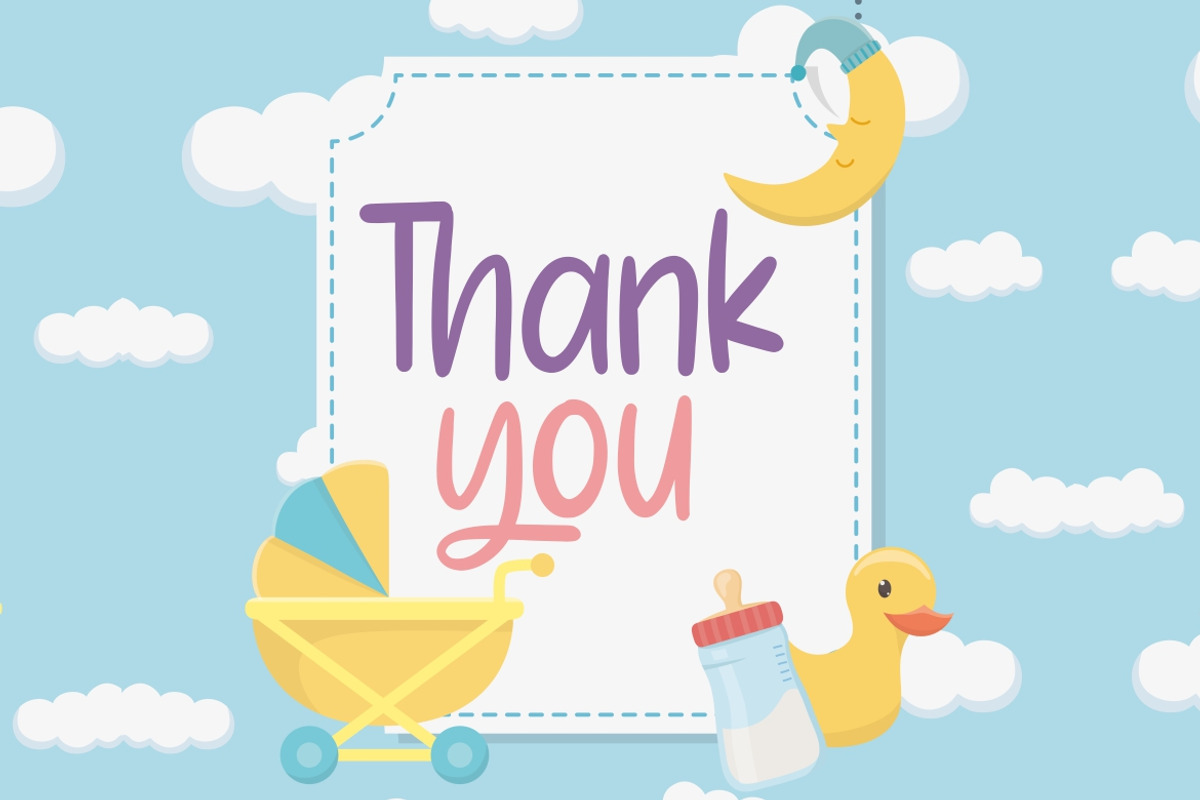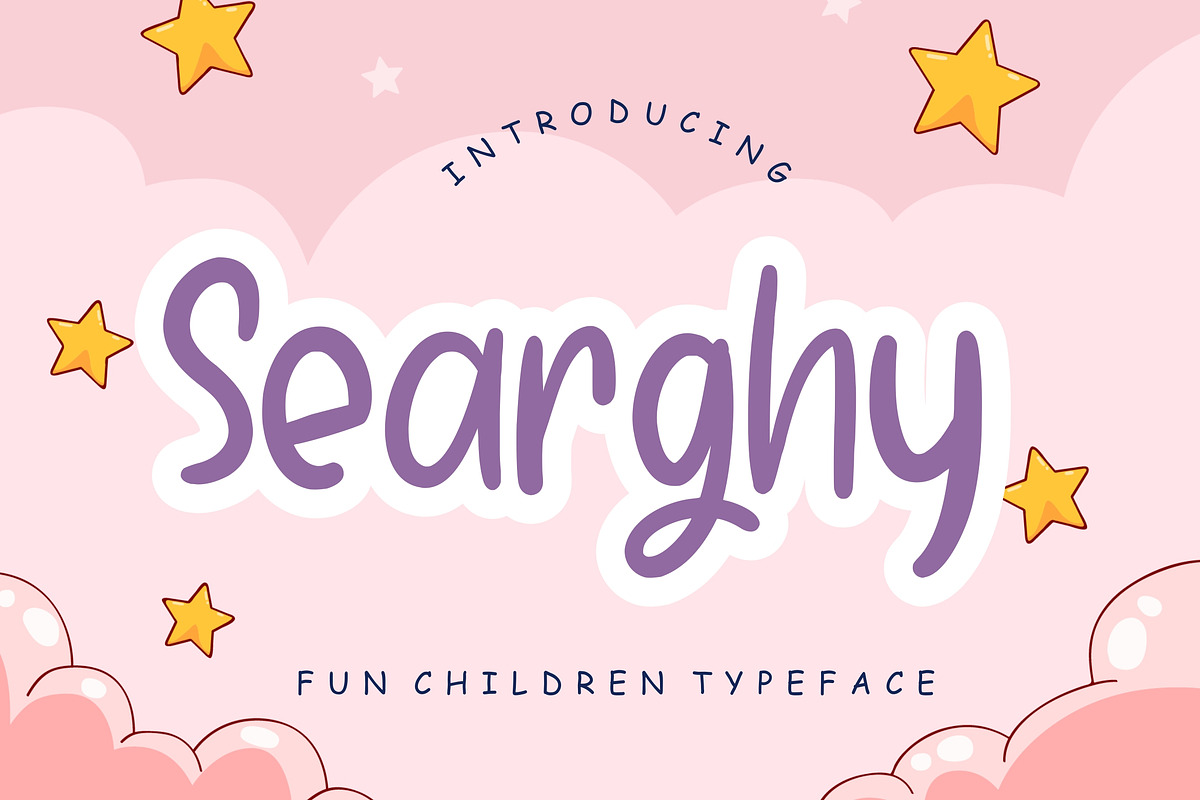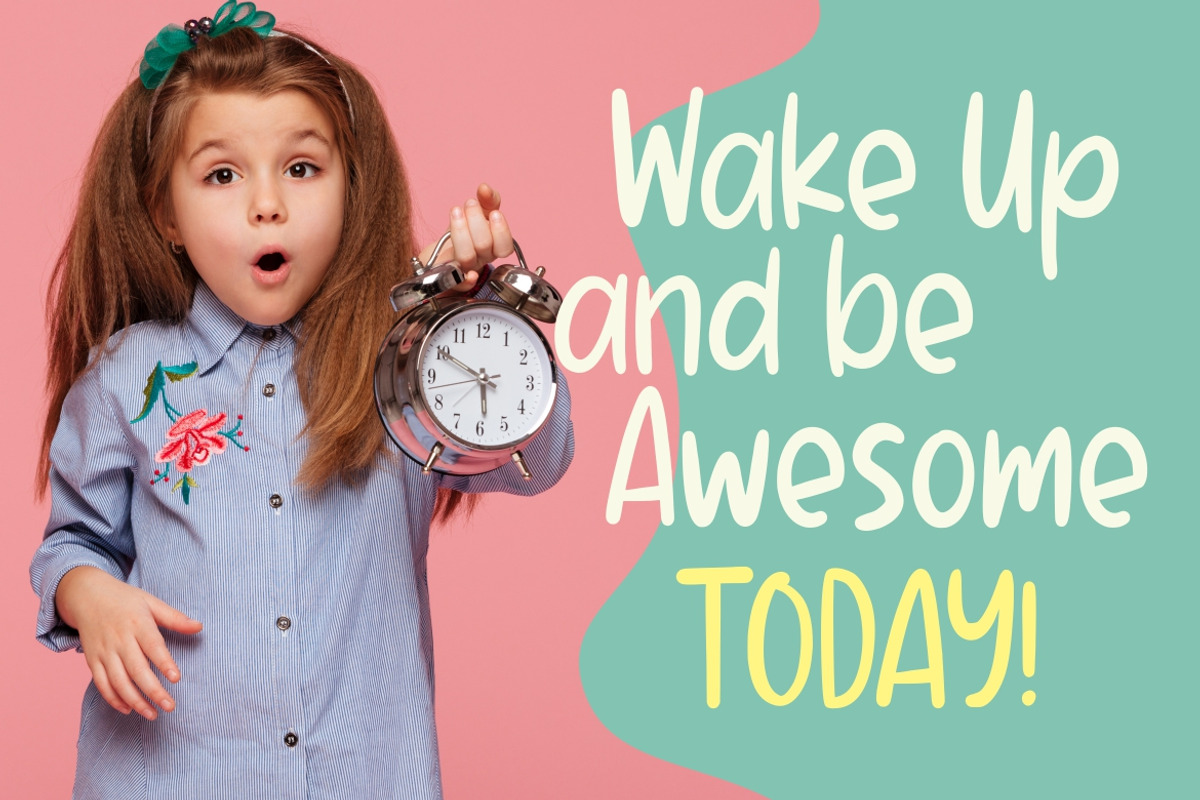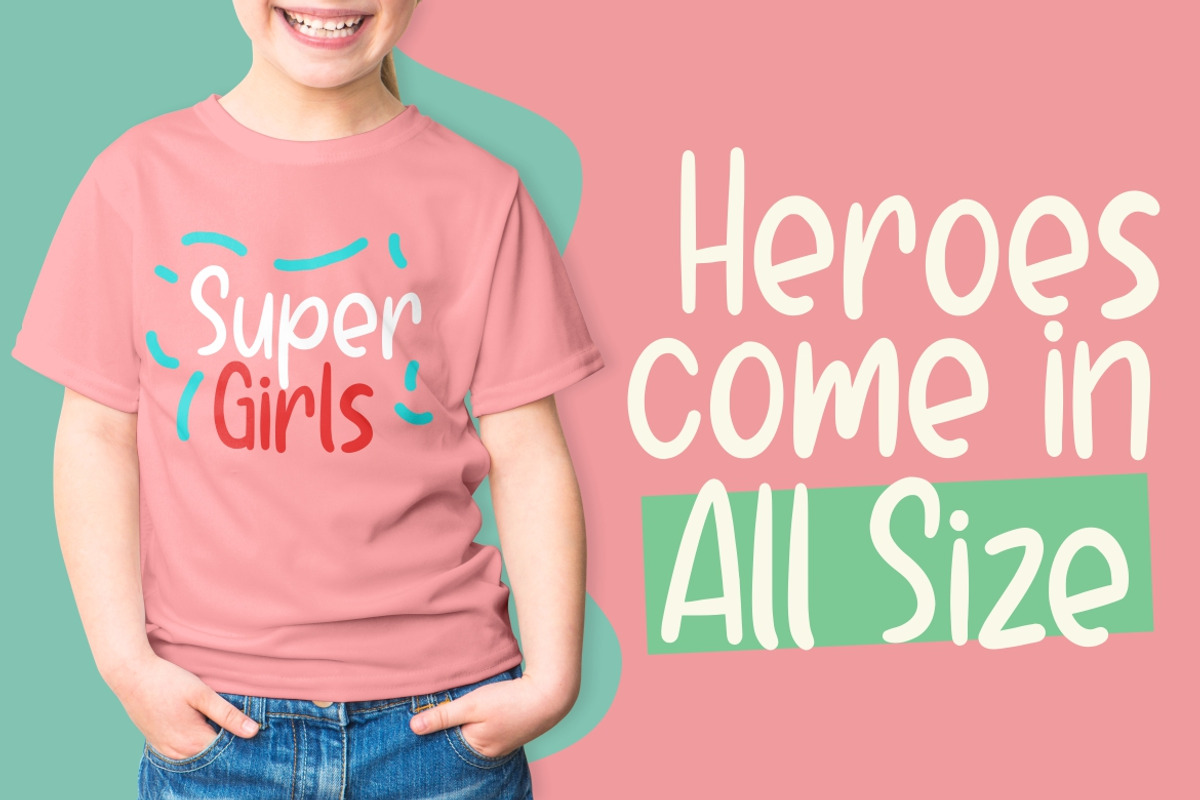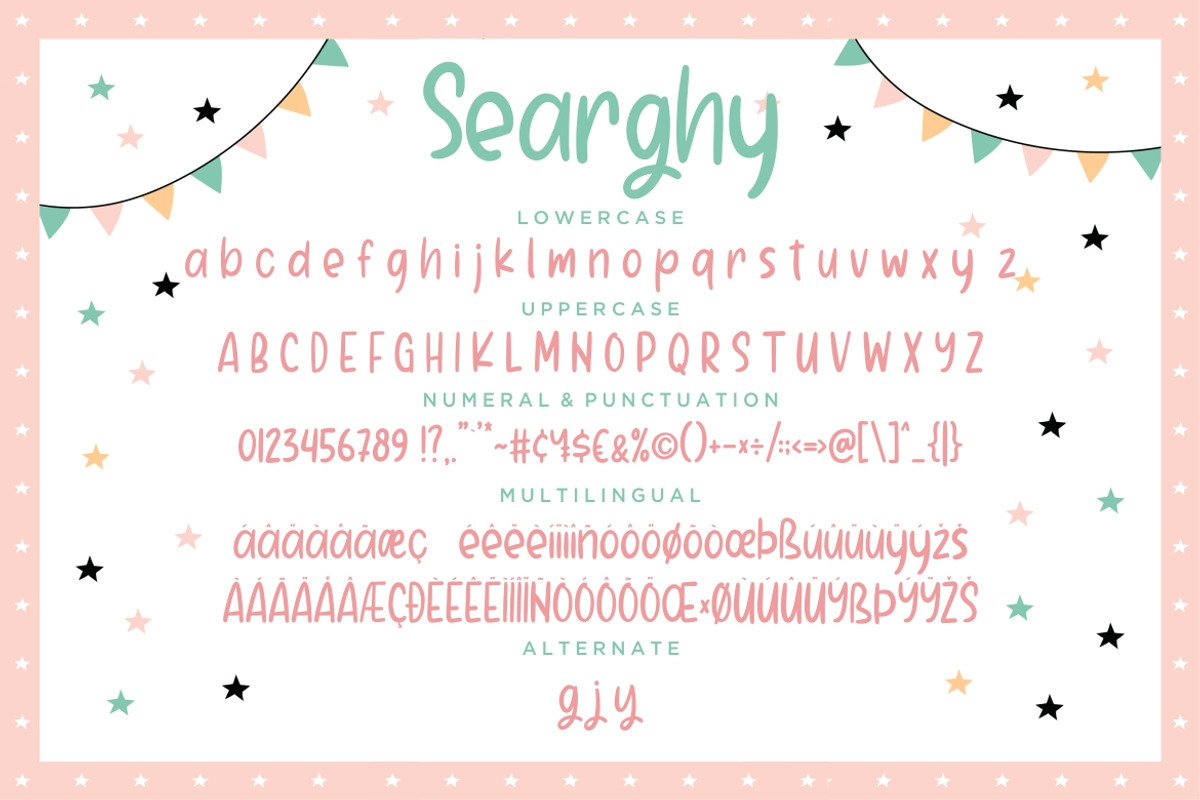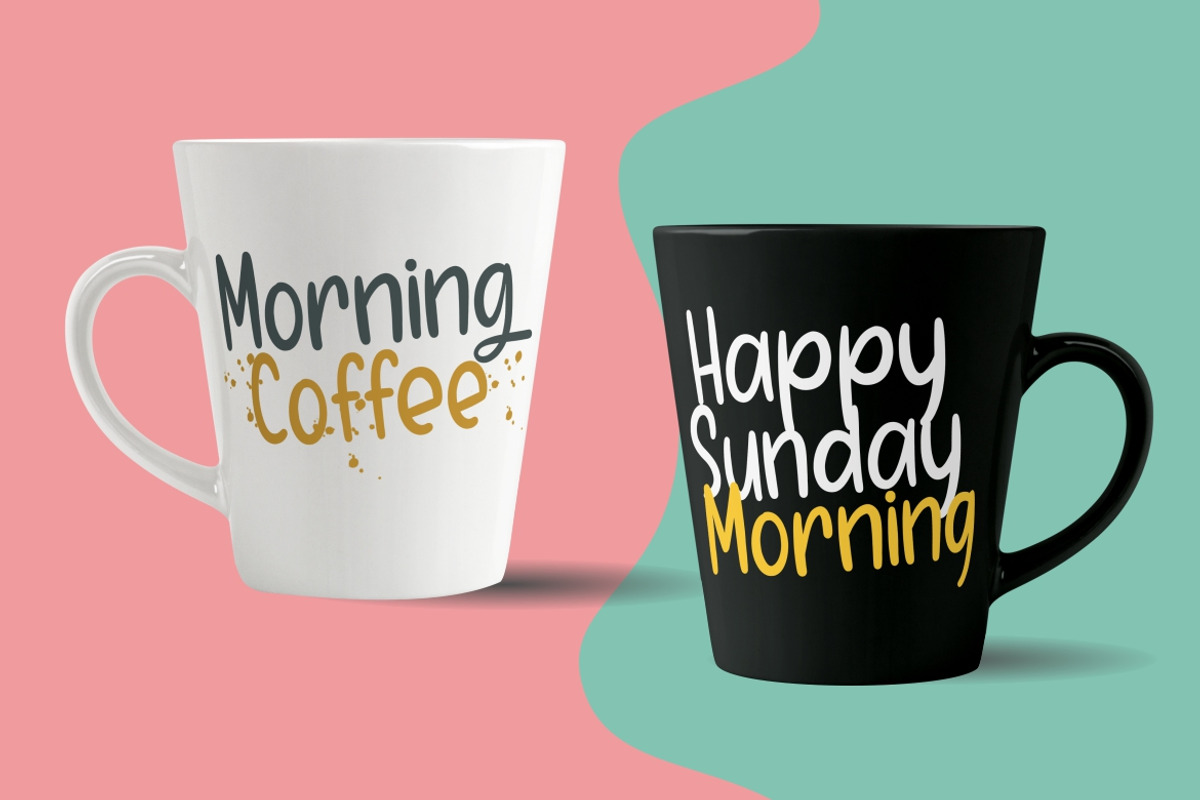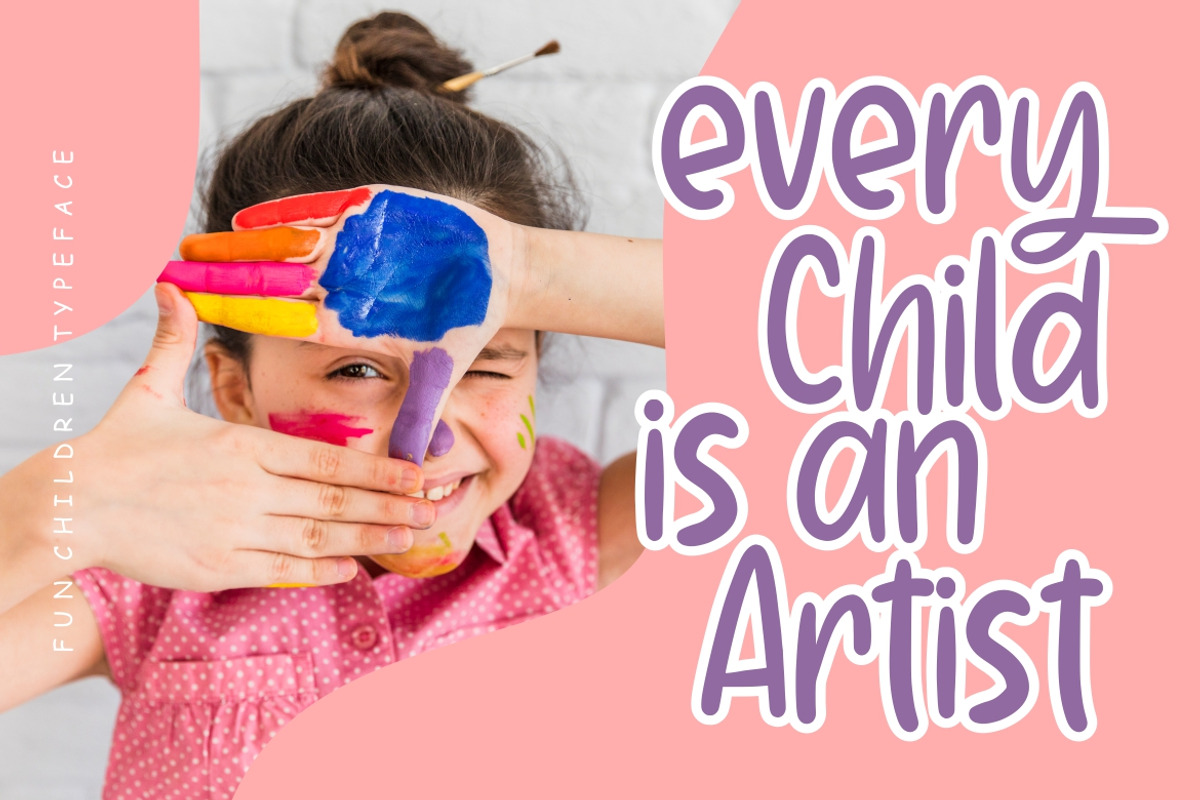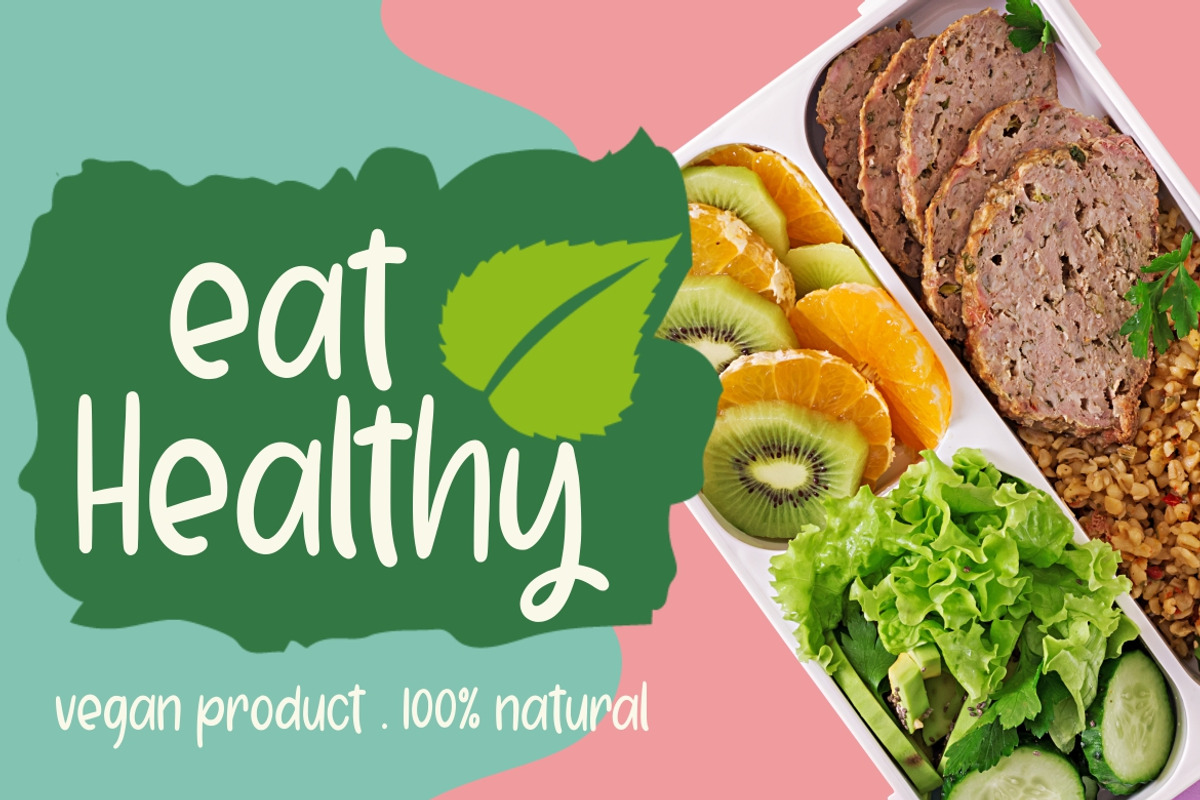
Searghy Fun Children Typeface
Searghy is a fun children font which perfect for children and kindergarten occasion.
Searghy is perfect for branding projects, logo, wedding designs, social media posts, advertisements, product packaging, product designs, label, photography, watermark, invitation, stationery and any projects that need handwriting taste.